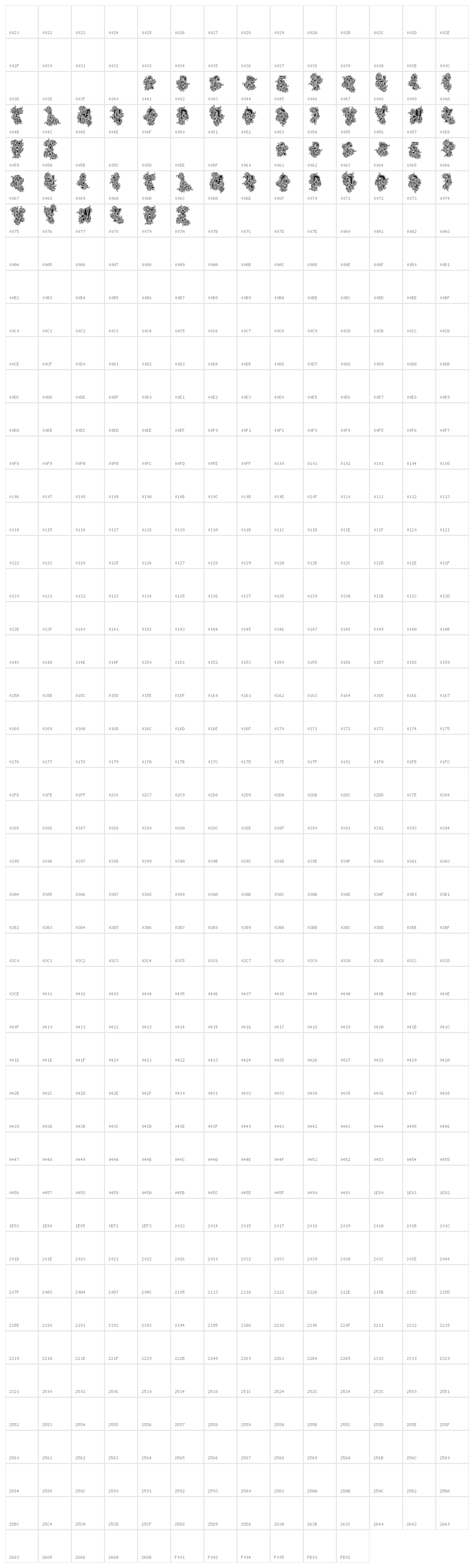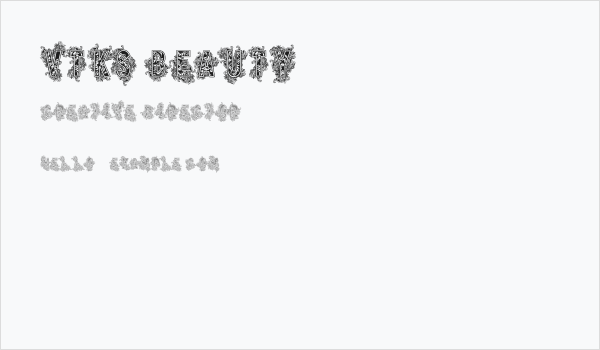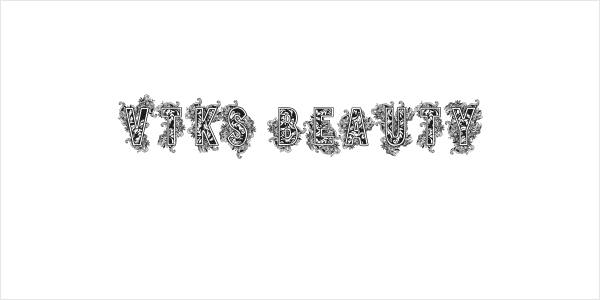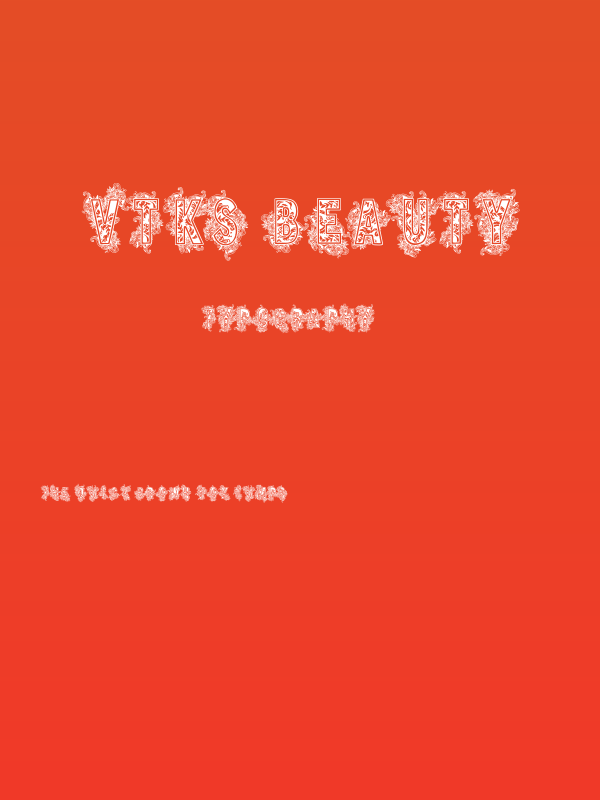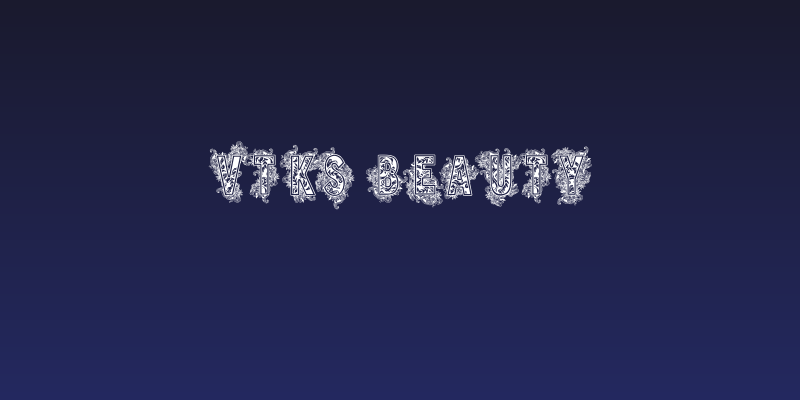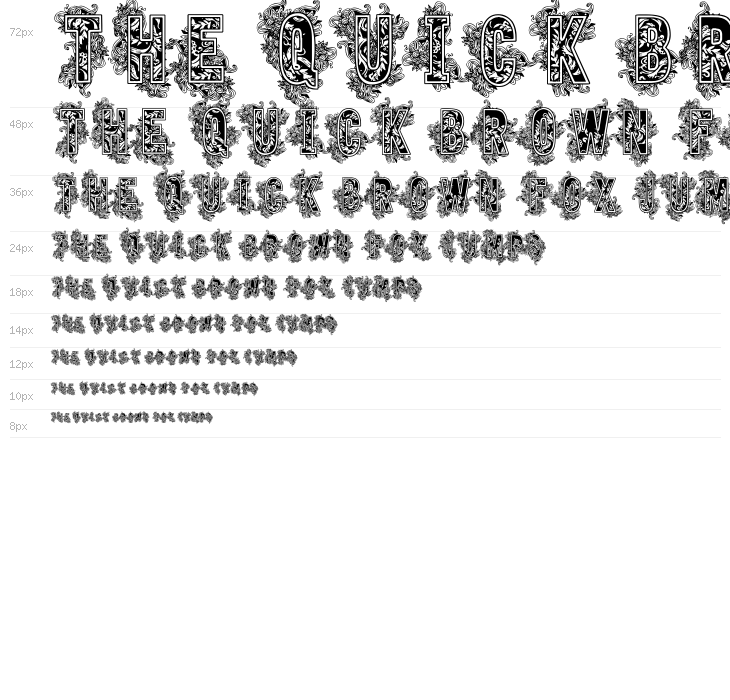
VTKS BEAUTY Font
VTKS BEAUTY Description
This font features an ornate and decorative style, characterized by intricate floral and vine-like embellishments surrounding each letter. The uppercase letters are bold and stand out with their elaborate design, making them ideal for attention-grabbing headlines or artistic projects. The detailed patterns give the font a vintage and classic feel, reminiscent of old-world typography. The high contrast between the thick strokes of the letters and the delicate embellishments adds to its visual appeal, making it suitable for decorative purposes.
| Overall Style | Vintage, Decorative |
| Use Case | Headlines, Logos, Decorative text |
| Proposed Projects | Ideal for wedding invitations, vintage-themed posters, artistic book covers, and decorative signage. |